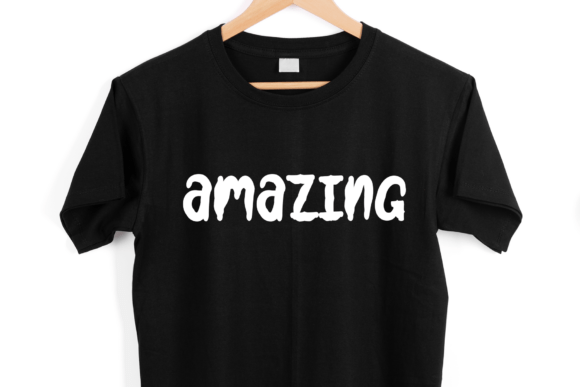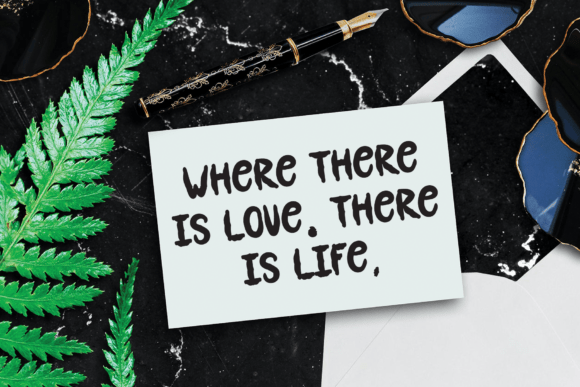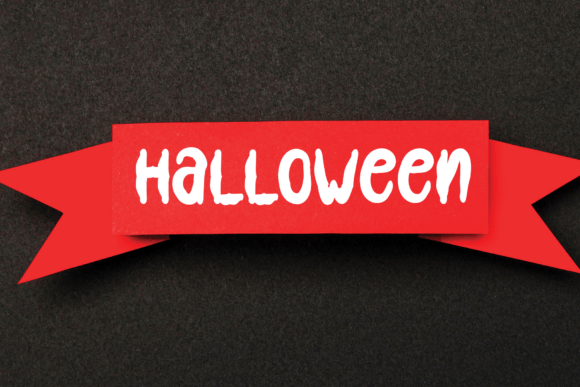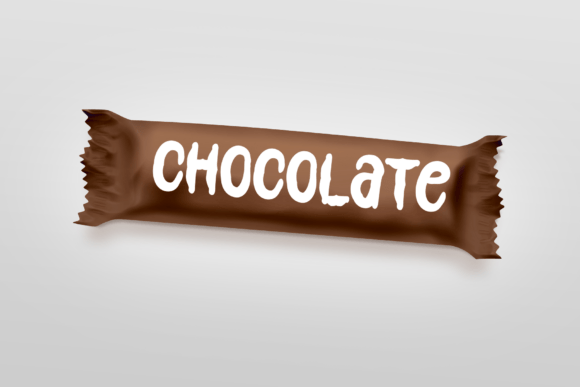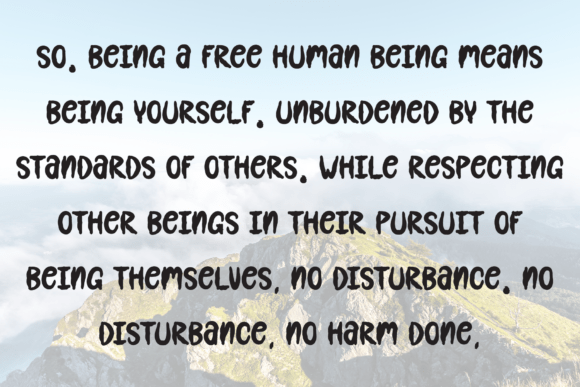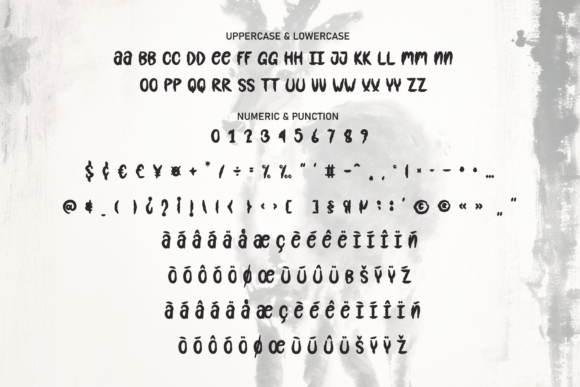
Introducing Brush Hunter Font: The Perfect Blend of Simplicity and Friendliness
In the world of typography, finding the right font can make all the difference in creating a lasting impression. For designers and crafters looking for a font that combines simplicity with a friendly, approachable vibe, Brush Hunter Font is an excellent choice. This casual and neat display font is designed to capture the essence of modern handwritten typography with a polished finish, making it ideal for a wide range of design applications.
Clean Lines, Balanced Letterforms, and Subtle Rounded Edges
One of the standout features of Brush Hunter Font is its clean lines, balanced letterforms, and subtle rounded edges. These design elements work together to create a font that is both visually appealing and highly legible. The clean lines provide a crisp and modern look, while the balanced letterforms ensure that the font remains harmonious and easy to read. The subtle rounded edges add a touch of warmth and friendliness, making the font perfect for designs that require a personal and approachable feel.
Ideal for Branding, Headlines, Packaging, and Digital Content
Brush Hunter Font is a versatile font that can be used in a variety of design applications. Its clean and modern design makes it perfect for branding, where a strong and recognizable identity is essential. The font’s friendly and approachable vibe also makes it well-suited for headlines, packaging, and digital content, where it can add a warm and inviting touch to any design.
Adding a Warm and Inviting Touch to Any Design
One of the key benefits of Brush Hunter Font is its ability to add a warm and inviting touch to any design. The font’s subtle rounded edges and balanced letterforms create a sense of friendliness and approachability, making it perfect for designs that require a personal touch. Whether you’re creating a brand identity, designing a headline, or crafting a digital product, Brush Hunter Font can help you connect with your audience and create a lasting impression.
Delivering Clarity and Charm in Equal Measure
Brush Hunter Font is a font that delivers clarity and charm in equal measure. Its clean lines and balanced letterforms provide a high level of legibility, making it easy to read and understand. At the same time, the font’s subtle rounded edges and friendly vibe add a touch of charm and personality, making it perfect for designs that require a unique and memorable look.
Brush Hunter Font is a font that is perfect for designers and crafters. Its versatility and range make it suitable for a wide range of design applications, from branding and headlines to packaging and digital content. The font’s clean and modern design also makes it easy to pair with other fonts, allowing designers to create unique and harmonious typography combinations.
Key Features of Brush Hunter Font
- Clean lines and balanced letterforms for a modern and harmonious look
- Subtle rounded edges for a friendly and approachable vibe
- Ideal for branding, headlines, packaging, and digital content
- Perfect for designs that require a warm and inviting touch
- Delivers clarity and charm in equal measure
- Versatile and easy to pair with other fonts
In conclusion, Brush Hunter Font is a casual and neat display font that combines simplicity with a friendly, approachable vibe. Its clean lines, balanced letterforms, and subtle rounded edges make it perfect for a wide range of design applications, from branding and headlines to packaging and digital content. With its versatility, range, and polished finish, Brush Hunter Font is an excellent choice for designers and crafters looking to add a warm and inviting touch to any design.